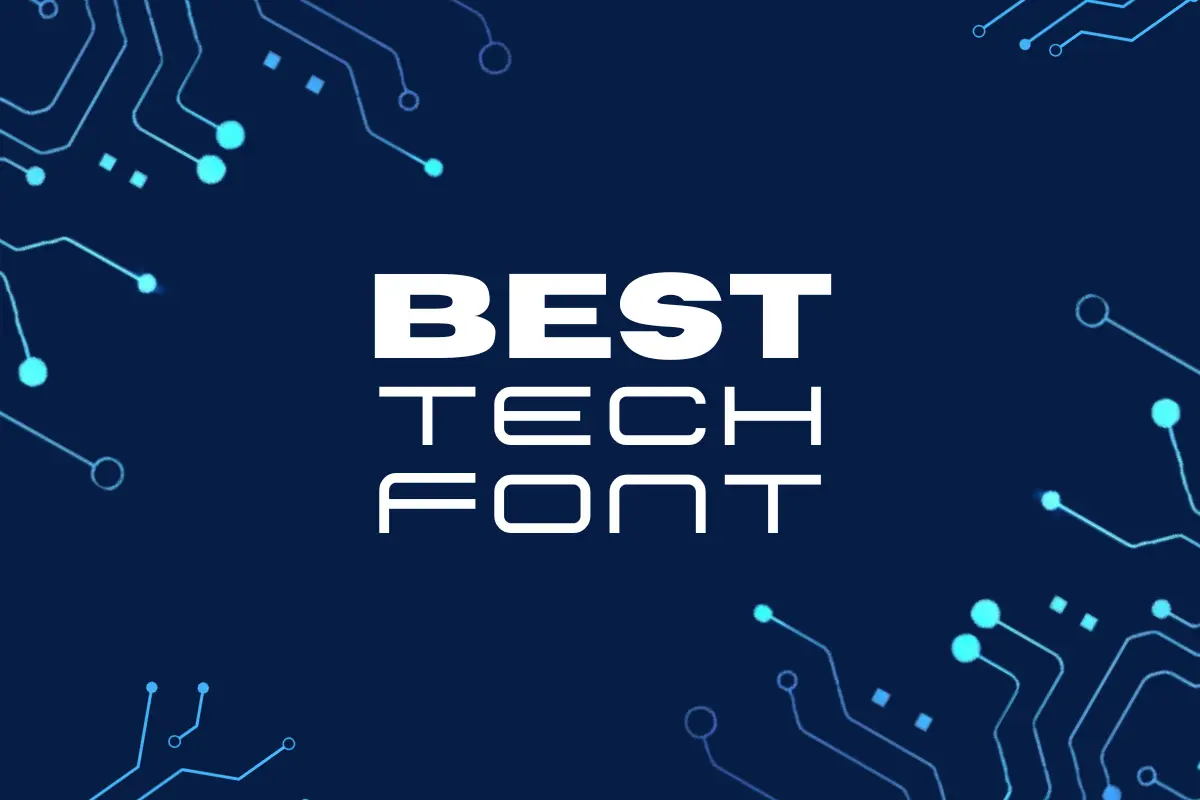
Are you in search of the best tech fonts to give your digital creations that cutting-edge, futuristic edge they deserve? If so, you’re in the right place.
In the vast landscape of fonts, tech fonts stand out as the unsung heroes of design. They are the digital architects of typography, meticulously crafted to convey innovation, sleekness, and a touch of sci-fi sophistication. These fonts are more than just letters on a screen; they are the building blocks of the tech-driven world we live in.
From the early days of computing to the modern era of responsive web design and app development, tech fonts have evolved to keep pace with our digital age. They have transcended their functional roles and become an integral part of user experiences, branding, and visual storytelling.
In this article, we will delve deep into the realm of tech fonts and curate a list of the best options available today. Whether you’re a web designer, app developer, content creator, or simply someone with an appreciation for the aesthetics of technology, this compilation is here to help you make informed choices that enhance your digital projects.
So, if you’re ready to embark on a typographic journey through the world of technology, join us as we explore the best tech fonts to elevate your designs to the next level. Let’s get started!
What Defines the Best Tech Fonts?
Tech fonts are more than just letters on a screen. They are the architects of the digital realm, carefully crafted to convey a sense of modernity and sophistication. These fonts exude a unique character, making them a powerful choice for various digital applications. From website headers to app interfaces, the right tech font can elevate your design to a whole new level.
But what sets the best tech fonts apart from the rest? It’s their ability to seamlessly blend form and function. These fonts are not just aesthetically pleasing; they also enhance the user experience, ensuring that your audience connects with your content on a deeper level. In a world where technology reigns supreme, choosing the right font is a critical decision.
Why Opt for the Best Tech Fonts?
Selecting the best tech fonts for your digital projects offers a multitude of advantages. Firstly, these fonts have an innate ability to capture the attention of your audience. They make your design stand out, just as a striking tattoo font would in the world of body art.
Additionally, tech fonts are versatile. They cater to a wide range of design preferences, whether you’re going for a classic, minimalist look or a cutting-edge, futuristic vibe. With a plethora of tech fonts readily available, you have the freedom to choose one that aligns perfectly with your creative vision.
In the digital realm, fonts are more than just text; they are brand identity, user experience, and aesthetics rolled into one. The best tech fonts make your content memorable, engaging, and user-friendly.
So, if you’re on the hunt for fonts that can add a touch of tech-savvy sophistication to your digital designs, the world of tech fonts awaits. Get ready for a typographic journey that will transform your creations and leave a lasting impression.
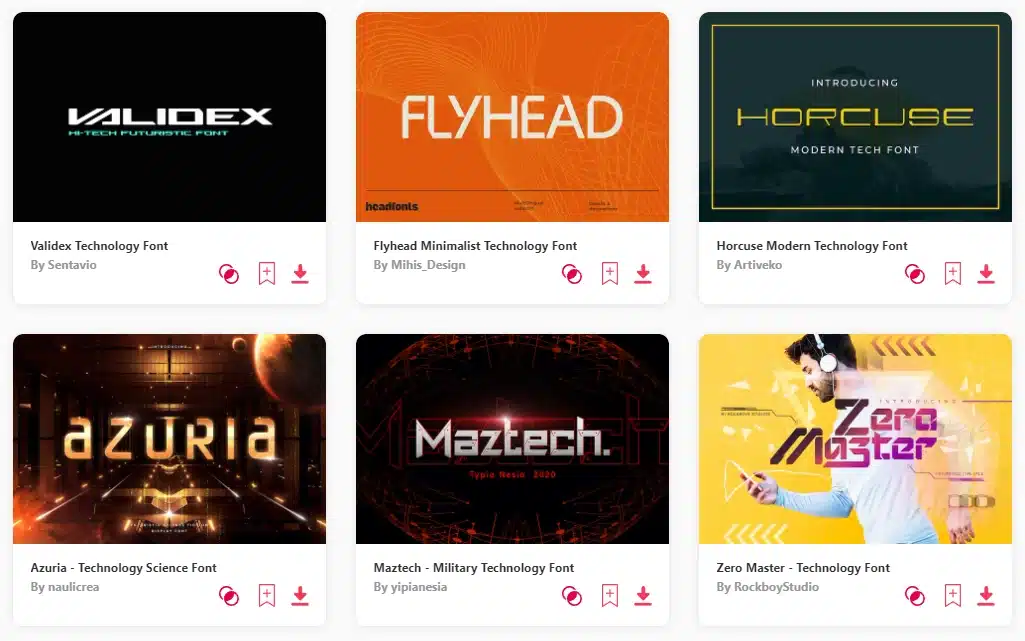
1. Bergan – Cyberpunk Futuristic Techno Font
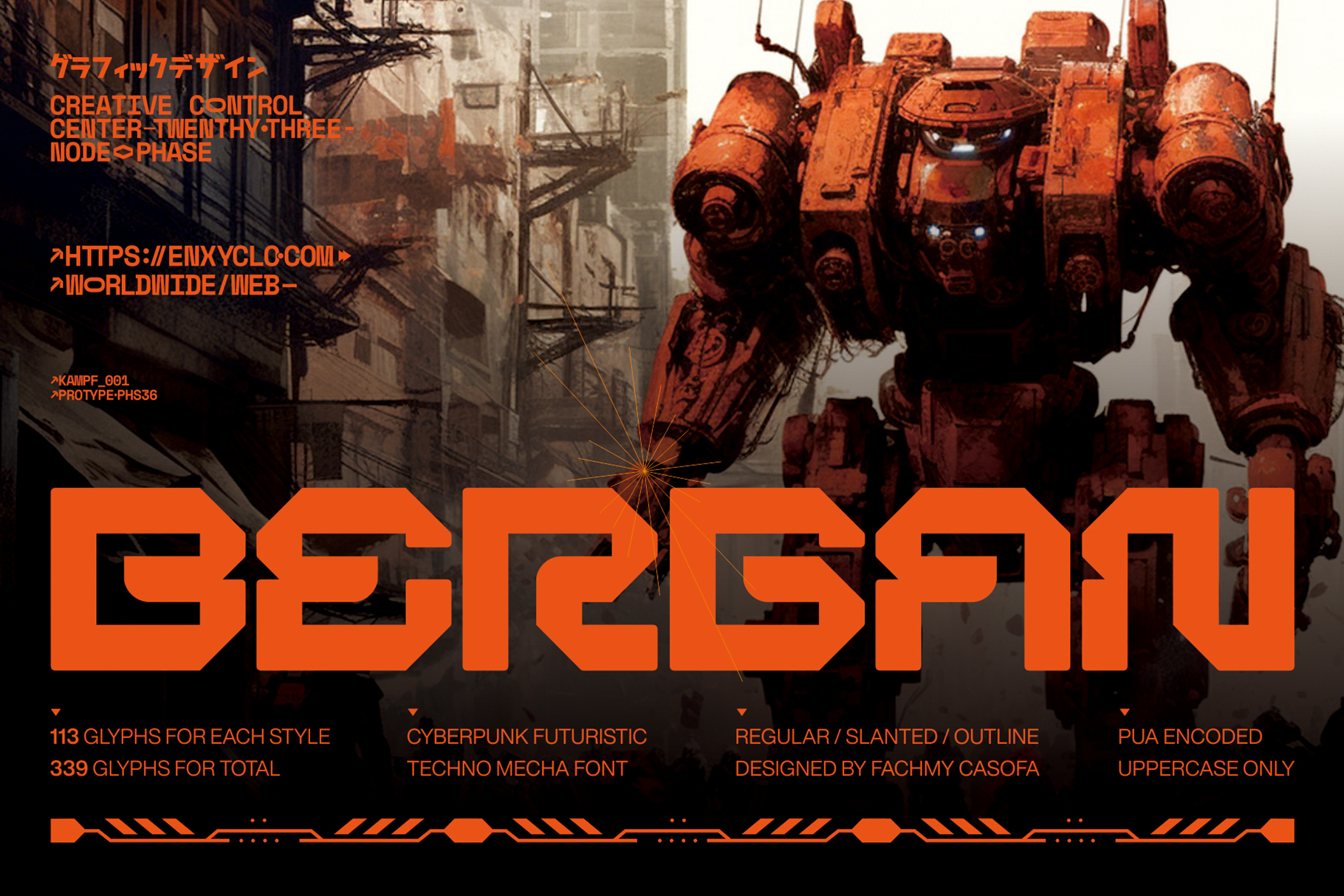
Introducing BERGAN, a cutting-edge mecha industrial tech font that adds power and inspiration to any project. Perfect for headlines, magazines, websites, branding, and more, this futuristic typeface offers three styles—Regular, Outline, and Slant—each with 113 glyphs. With uppercase, numerals, punctuation, and symbols, BERGAN helps your design project stand out with its futuristic touch.
2. Kroigs – Futuristic Techno Cyberpunk Font
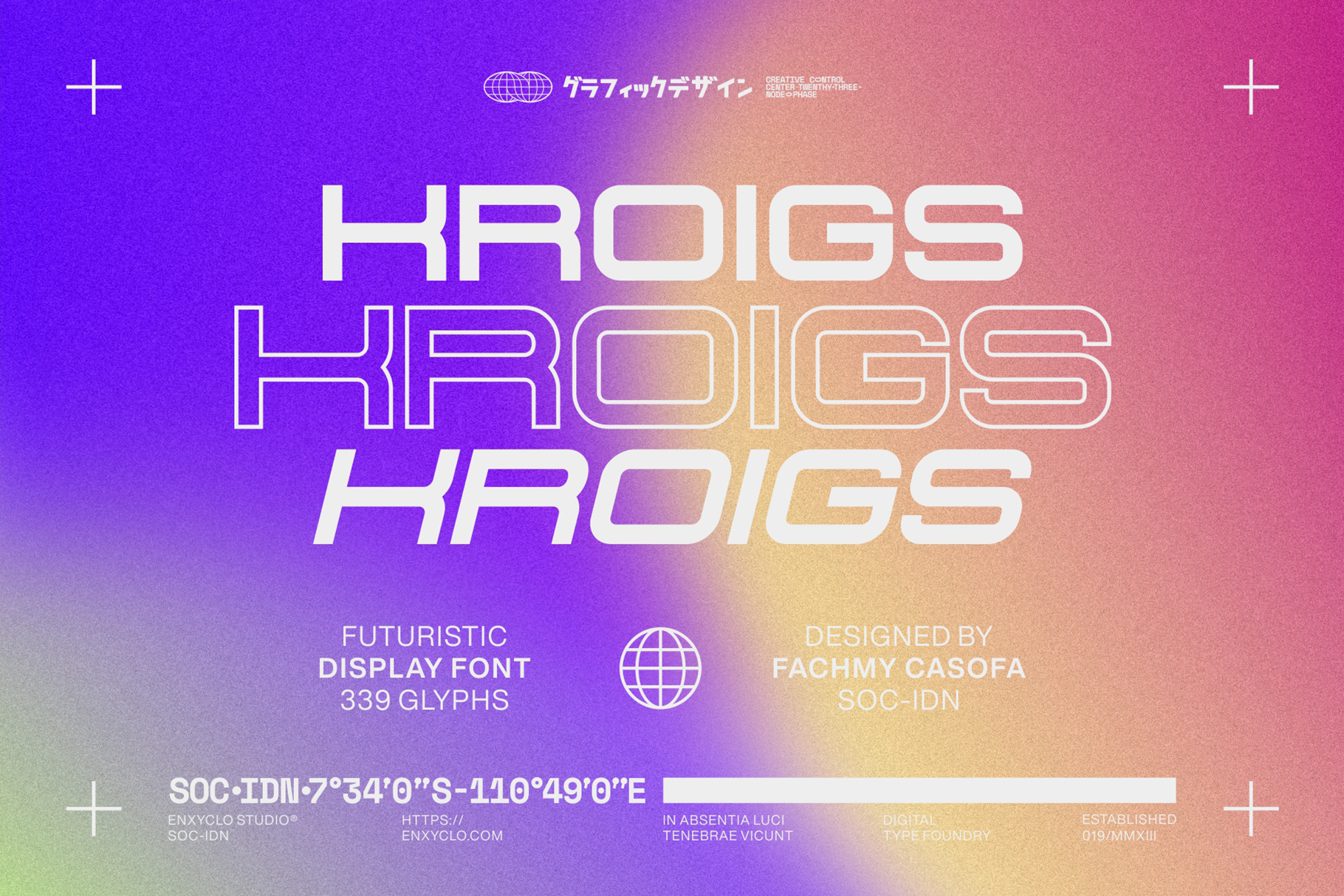
Introducing KROIGS, the ultimate tech font for futuristic projects. This display font is designed to add power and inspiration to your designs, whether for headlines, websites, or branding. With three styles—Regular, Outline, and Slant—each containing 113 glyphs, KROIGS offers versatility and style. Compatible with True Type, Open Type, and Web Open Font Format, KROIGS ensures seamless integration into any project requiring a futuristic touch.
3. Bexago – Futuristic Techno Cyberpunk Font
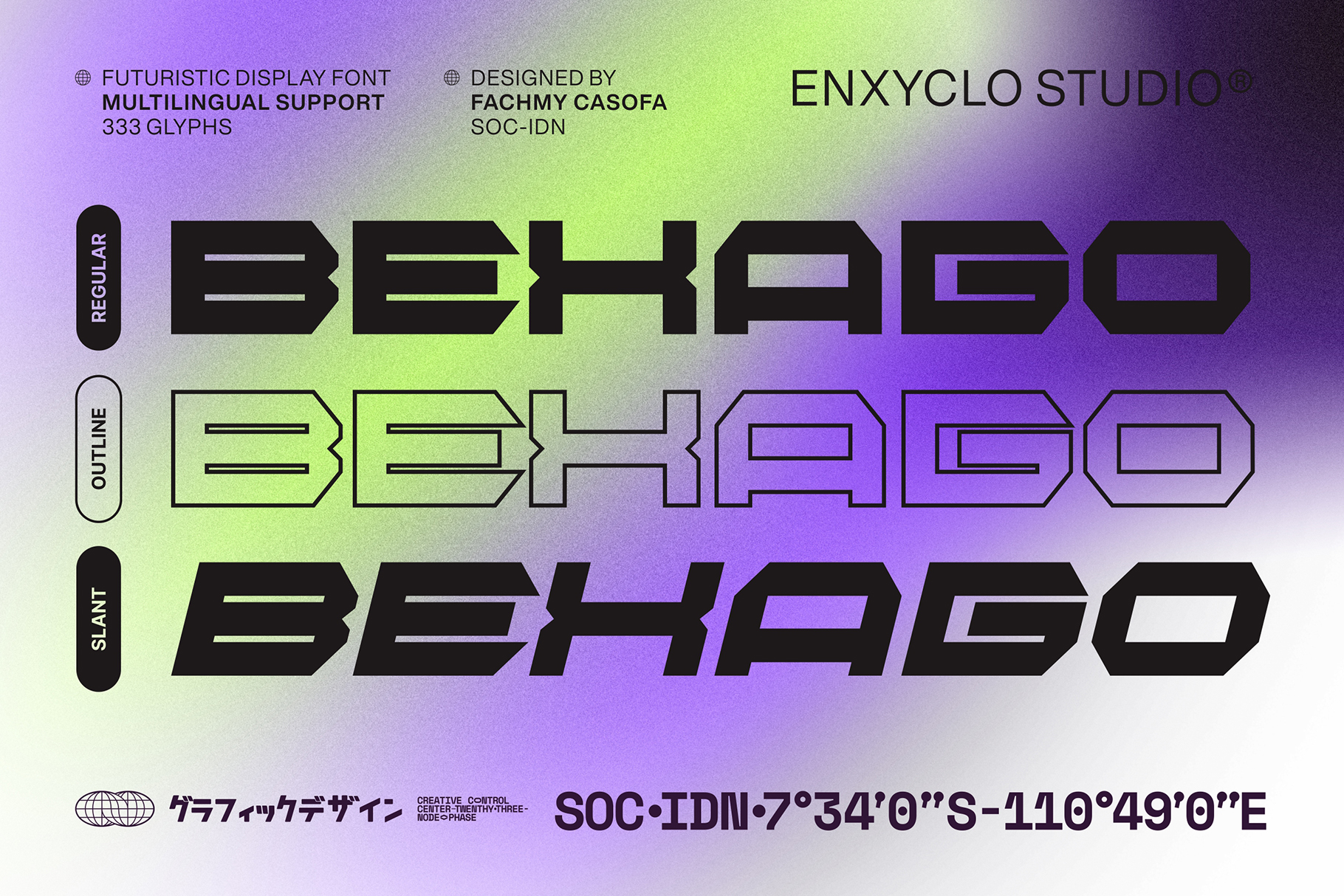
Unveiling BEXAGO—a cutting-edge tech font designed to amplify your projects with its futuristic flair. Whether it’s headlines, billboards, websites, or logos, BEXAGO delivers unmatched power and inspiration. With three versatile styles—Regular, Outline, and Slant—and a whopping total of 999 glyphs across all styles, this font is your key to making a bold statement. Compatible with True Type, Open Type, and Web Open Font Format, BEXAGO also offers seamless multilingual support, ensuring your creations shine on a global scale.
4. Madsden – Futuristic Font
Madsden – Futuristic Font is not merely a typographic tool but an experience in itself. It represents the future of typography, offering sleek, dynamic, and visually captivating characters that redefine modern design. Whether it’s a sci-fi project, tech branding, or any creative venture in need of a contemporary touch, these fonts are the ideal resource.
Key Features of Madsden – Futuristic Font
- Uppercase Characters
- Lowercase Characters
- Numbers
- Punctuation
- Multilingual Support
Within this comprehensive list of top tech fonts, each font will be individually explored, providing in-depth descriptions and insights on how to harness their full potential. Design enthusiasts can elevate their creative projects to new heights and embrace the future of typography with Madsden – Futuristic Font and the other fonts in this carefully selected collection. It’s an opportunity to stay at the forefront of design trends and leave a lasting impact with the perfect font for any project.
5. Qrosbi Futuristic Tech Font
The Qrosbi Futuristic Tech Font is your answer to the demand for modern, sleek, and trendy fonts in the market. It’s the ideal choice for contemporary logo design, offering a stylish and user-friendly approach.
Qrosbi Font: Versatile and Modern Whether you’re working on logos, branding, fashion, menus, quotes, album covers, or other projects, the Qrosbi font has you covered. It’s here to enhance your designs and take them to the next level.
As part of a collection of the best tech fonts, this font will be featured alongside others, each with its own unique features and applications. Discover how the Qrosbi Futuristic Tech Font can elevate your modern design projects.
6. Dzruik Futuristic Font
Experience the elegance of Dzruik Futuristic Font, where minimalist design meets sophistication. With graceful curves at its letter ends, this font seamlessly bridges the past and the future. It’s the perfect choice for various applications like branding, design templates, invitations, calendars, posters, headlines, brochures, and more, catering to the visual needs of modern technology. Its adaptability suits headlines, logos, and lettering, ensuring clear communication with a sharp visual appeal. ‘Dzruik’ embodies a timeless fusion of futuristic style and sophistication, inviting you into a visually compelling world with a touch of Y2k aesthetics.
7. Hacker Technology Font
In the world of best tech fonts, Hacker – Technology Font takes the spotlight. This rounded display font is a nostalgic nod to the computer revolution of the 1980s, combining inviting aesthetics with a distinctive boldness that’s undeniably appealing.
Its versatility knows no bounds, making it a perfect choice for anything related to cyber, security, internet, technology, communication, coding, data, electronics, mathematics, networking, commerce, and more. As part of our latest blog post, this font will be featured in a serial list of fonts, each with its unique description and applications, providing readers with a comprehensive guide to the best tech fonts available.
8. Aeion Tech Logo Font
In the world of devil demon fonts, Aeion Tech Logo Font emerges as a notable contender. It is a condensed monospaced font that offers seven different weights and the flexibility of a variable font. Aeion has been meticulously crafted with a focus on all things tech.
Aeion exudes an air of unyielding intensity; humor and levity have little space in its presence. Its aesthetic is a harmonious fusion of modern elements with a subtle retro touch, making it a fitting choice for contemporary design projects.
For those deeply entrenched in the world of technology, Aeion proves to be an invaluable asset as a display font. It finds its place in a variety of applications, including posters, branding, social media, magazines, logos, and more.
EXPLORE 400,000+ FONTS & DESIGN TOOLS WITH UNLIMITED DOWNLOADS!
Discover Limitless Design Options: Envato Elements Offers 14 Million+ Fonts and Design Elements on Monthly Subscription!
Start Downloading9.Siegra – Sporty Tech Font
Siegra represents a harmonious blend of power, sportiness, elegance, and futuristic aesthetics. This versatile techno font offers a dynamic appeal that complements various design styles. With its wide, sharp, and curvy letterforms, Siegra infuses energy and confidence into design projects.
This font is suitable for a wide range of applications, including posters, branding, campaigns, logos, keychains, stickers, t-shirts, and automotive designs. Siegra doesn’t stop at letters; it includes stylish ligatures that enhance your design’s impact. Moreover, it provides multilingual support and is PUA encoded, making it a powerful tool for designers seeking to elevate their work.
With Siegra, designers can harness the font’s innovation to unlock new dimensions of visual appeal and creativity. Whether you’re working on a logo or a sporty poster, Siegra’s versatility and style will make your design stand out. Explore the potential of this remarkable typeface to enhance your design projects.
10. Biomorph Modern Tech Font
Biomorph, a recent addition to the world of modern tech fonts, is poised to captivate designers. This condensed sans font family offers versatility and a range of styles, making it perfect for various projects, including branding, publishing, titles, books, magazines, and websites.
Biomorph boasts a font family that includes thin, extra light, light, regular, medium, semibold, and bold versions, giving designers the freedom to shape their creations according to their preferences. Whether you’re crafting a sleek brand identity or adding a modern touch to your website, Biomorph is here to elevate your designs with contemporary typography.
11. Ransom – Modern Technology Font
Ransom, a cutting-edge addition to modern tech fonts, caters to technology, sci-fi, and contemporary design. With a futuristic and modern aesthetic, it ensures your projects are unforgettable.
This font is ideal for headlines focusing on the future, technology, and dynamic themes. Ransom is designed with a bold action style and modern touch.
It provides characters tailored for tech-focused projects and comes in .otf, .ttf, and .woff formats for compatibility. Discover design inspiration in its preview and utilize all-uppercase characters to stand out.
Ransom empowers designers to infuse modernity and innovation into their work, ensuring their ideas shine. Whether it’s technology content or futuristic projects, Ransom elevates your designs to new heights, making them visually compelling and impactful.
12. Auranouva – a Hi-Fi Tech Font
Image Credit: Envato Elements
Auranouva captures the essence of futuristic vibes in a sleek and modern techno style. Inspired by the latest trends, this font is your go-to choice for all things technology and futuristic.
13. Maztech – Military Technology Font
Image Credit: Envato Elements
Maztech is the ultimate choice for all your military and futuristic design needs. Perfect for logos, branding, posters, packaging, invitations, and more, this font brings a robotic and futuristic touch to any project in the sci-fi or gaming industry. Unleash your creativity with Maztech and embark on a journey of futuristic typography design.
14. Mind Control Font: Sleek, Futuristic Style for Tech-Inspired Designs
Mind Control is a clean and edgy font that is designed to give your projects a high-tech and futuristic look. With its clean lines and contemporary design This font is perfect for film, gaming and other gadget-related designs that call for a distinctive futuristic, space-age style. A must for any digital artist this font gives you an immersive experience that is both contemporary and mystical.
Its distinctive techno style makes a an imposing look to video and web designs alike, which makes it a great option for those looking to improve their work.
15. Qrunzvord: A Modern Tech-Inspired Handwritten Font
Qrunzvord is a distinctive handwritten font that blends technology elegance and a beautiful flowing style. It stands out due to its intricate ligatures as well as subtle spiral inlays that create modern style with artistic design. It is ideal for projects that require an elegant yet contemporary touch Qrunzvord brings elegance and class to logos, digital designs and other creative visuals.
Incorporate Qrunzvord into your design toolkit and observe how it transforms your concepts with its refined and striking presence!
16. Gharisun: Bold Futuristic Display Font for Digital Media
Gharisun an impressive, tech-inspired display font designed specifically for projects that require technology and digital media. With its sleek, contemporary forms and clean lines, Gharisun is ideal for applications in virtual reality, gaming as well as the film industry and sci-fi film productions. Gharisun’s futuristic style draws people to experience a heightened world and makes it a great option for projects involving the realm of digital design, tech branding and much more.
When you’re designing graphics for a video game with high stakes or for a leading tech company, Gharisun ensures a bold and powerful presence that will elevate the quality of your work.